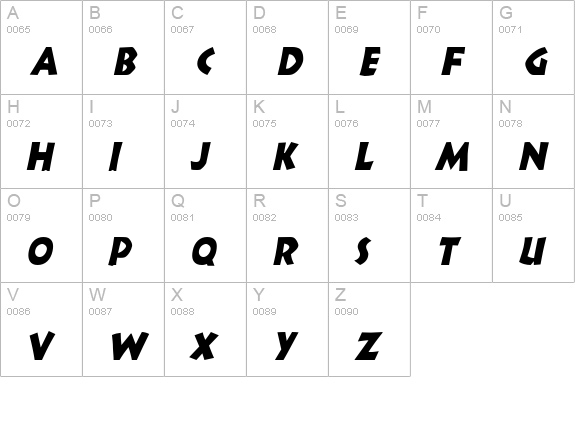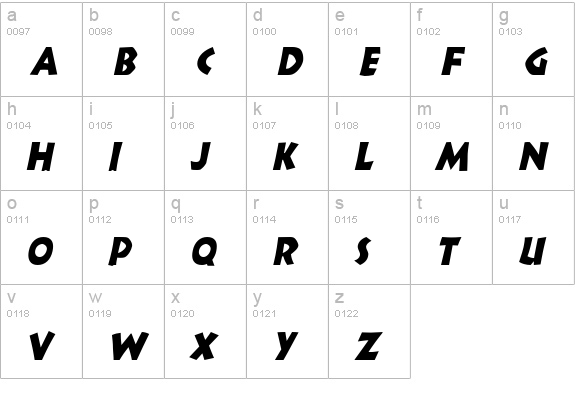
Indy Condensed Italic Font Details
Indy Condensed Italic is a distinctive, condensed-width, italic variant in the Indy typeface family \xE2\x80\x94 well suited to design and typography projects.
Indy Condensed Italic is a stunning and versatile font that exudes elegance and sophistication. Its sleek and slanted design adds a touch of modernity to any project, making it perfect for both professional and creative endeavors. With its condensed form, Indy Condensed Italic is ideal for fitting more text into limited spaces without sacrificing legibility. Whether used in headlines, logos, or body text, this font commands attention and ensures a memorable visual impact. The italicized style of Indy Condensed Italic adds a dynamic and energetic flair to any project, conveying a sense of movement and fluidity. Its graceful curves and subtle variations in stroke width create a harmonious balance that is visually captivating. As a free font, Indy Condensed Italic offers accessibility to designers and creators of all backgrounds. It can be freely downloaded at FontsMarket.com, allowing users to explore its possibilities and integrate it seamlessly into their design arsenal. Indy Condensed Italic is a font that effortlessly blends modernity with timeless elegance. Its versatility, legibility, and unique design make it a valuable asset for any design project. Whether used for print or digital media, this font is sure to leave a lasting impression on viewers and enhance the overall visual experience.